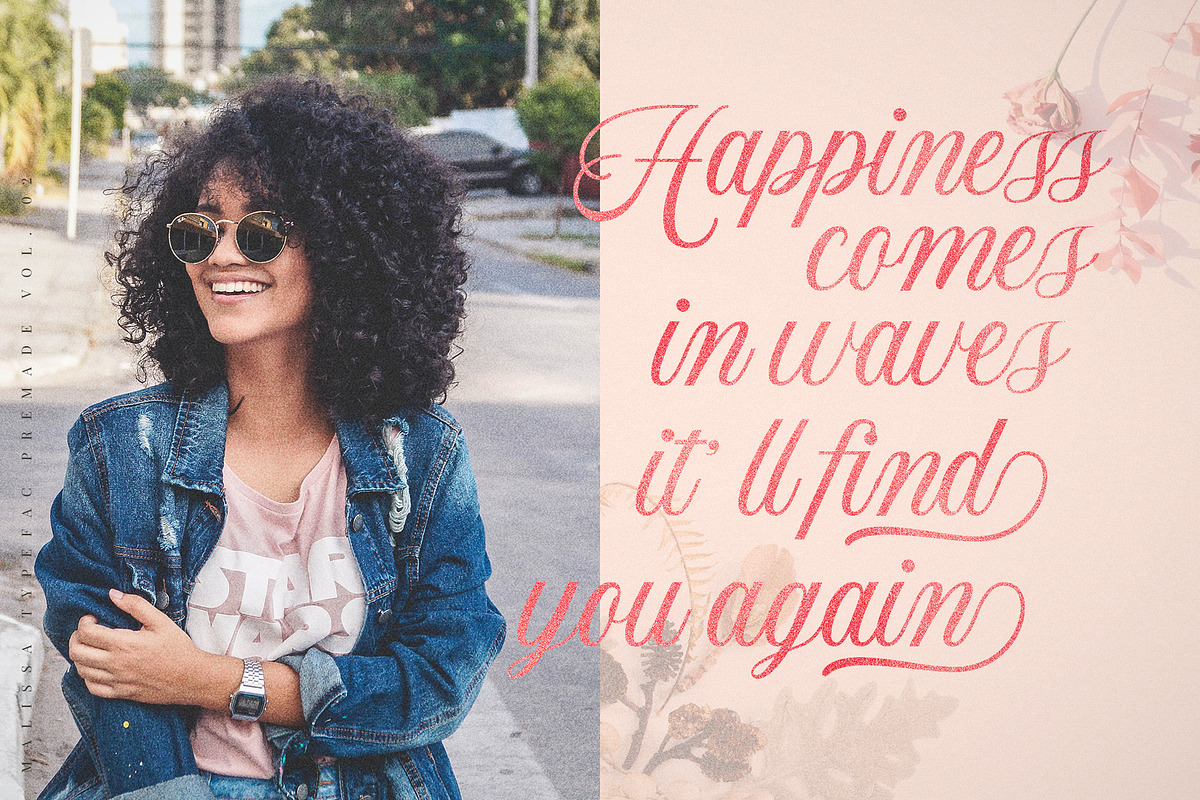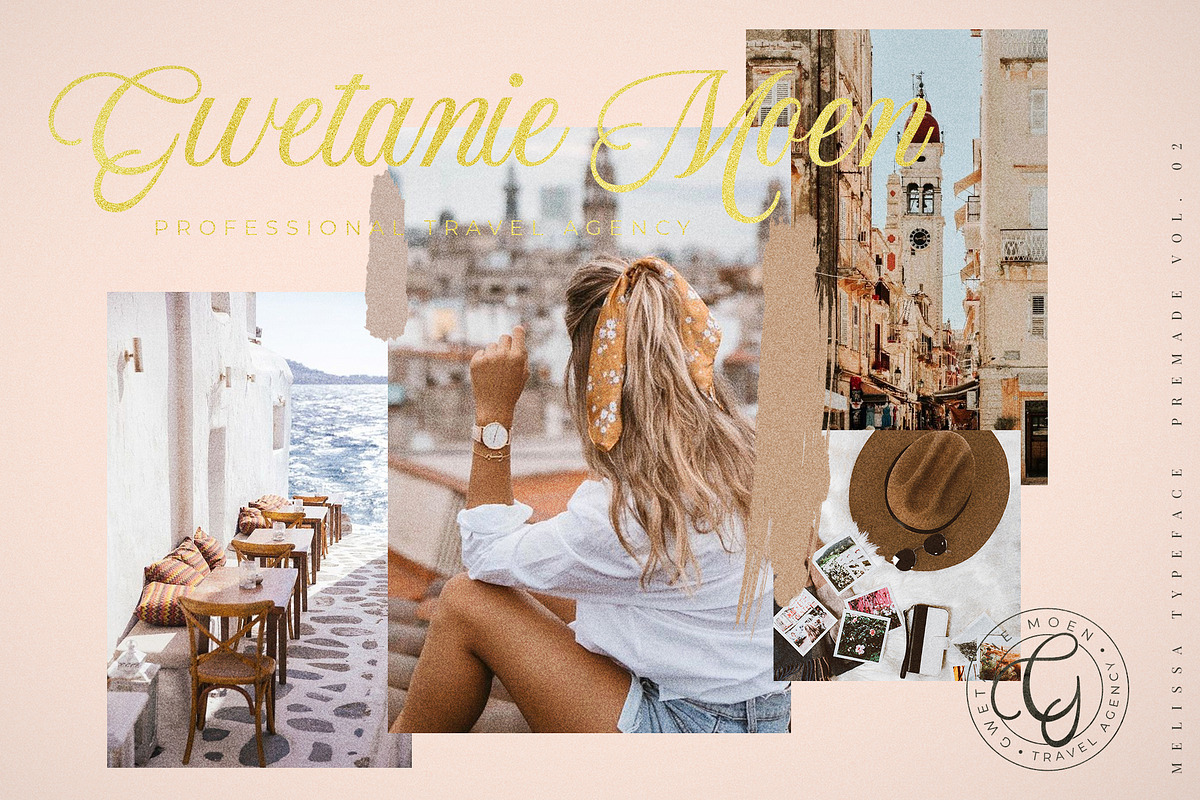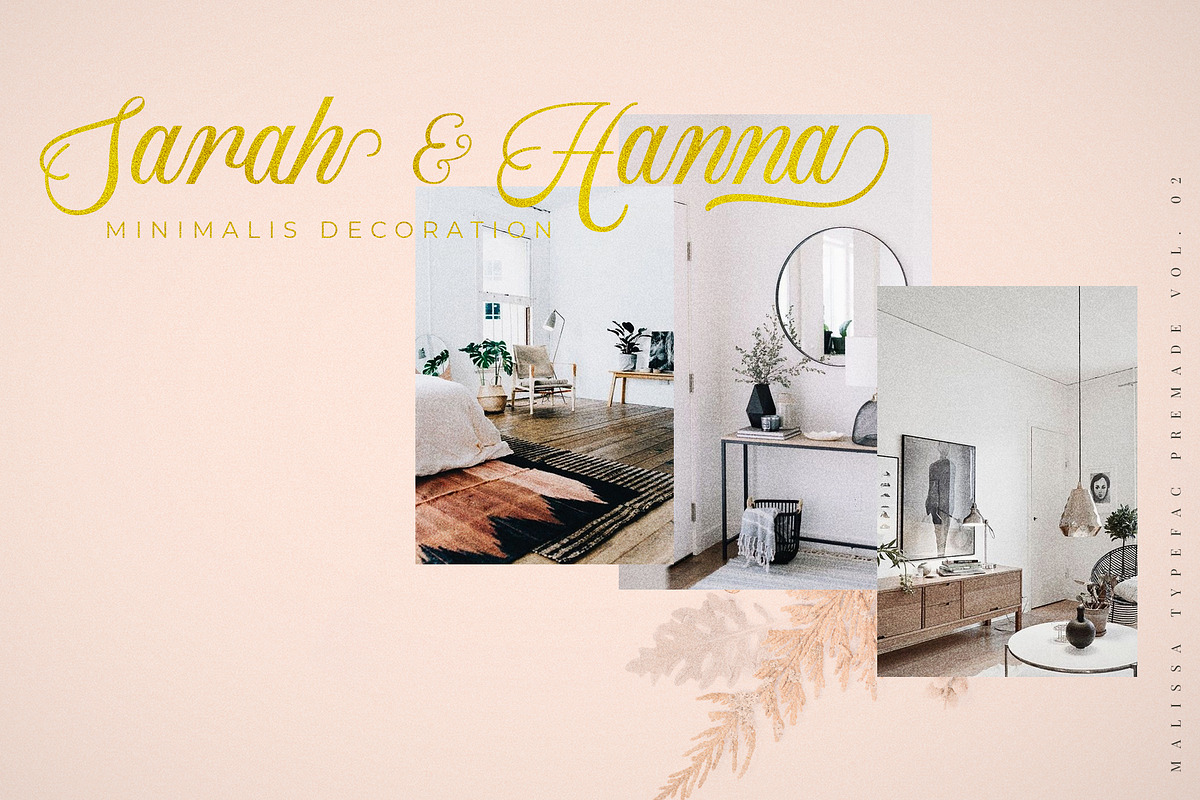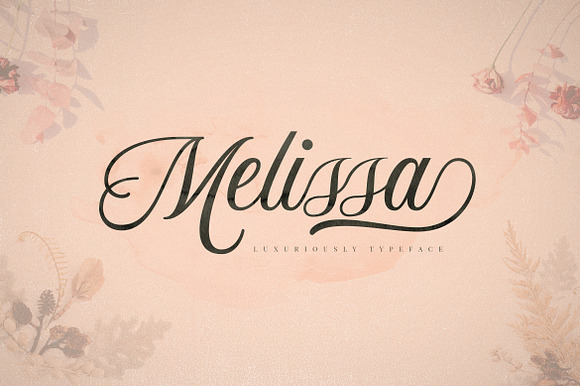
Mellisa Luxuriously Typeface
Mellisa is a classy handwriting font with a distinctive curve, inside with some interesting features that are perfect for a feminine-style project.
Mellisa have a features start and end swashed on uppercase and lowercase letters, very beautiful ligature and this font is very qualified when you use for wedding design projects, fashion, greeting, invitation, social media and much more.